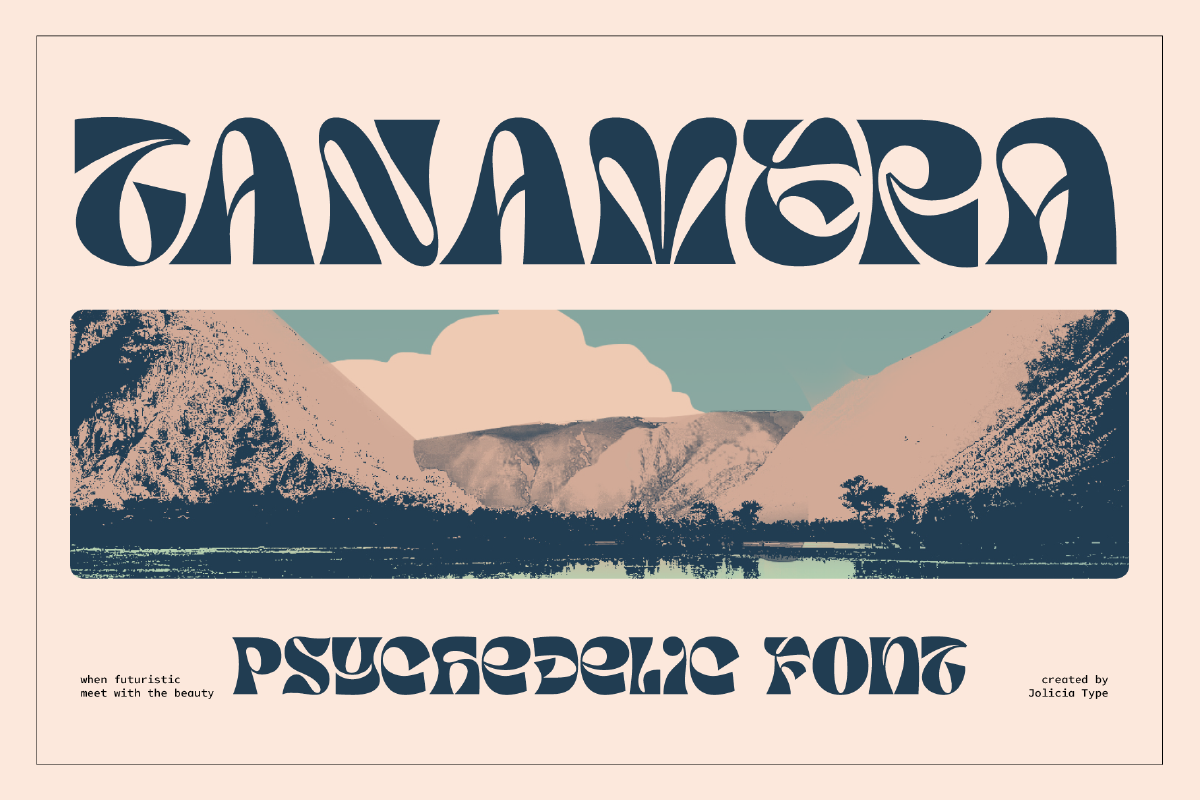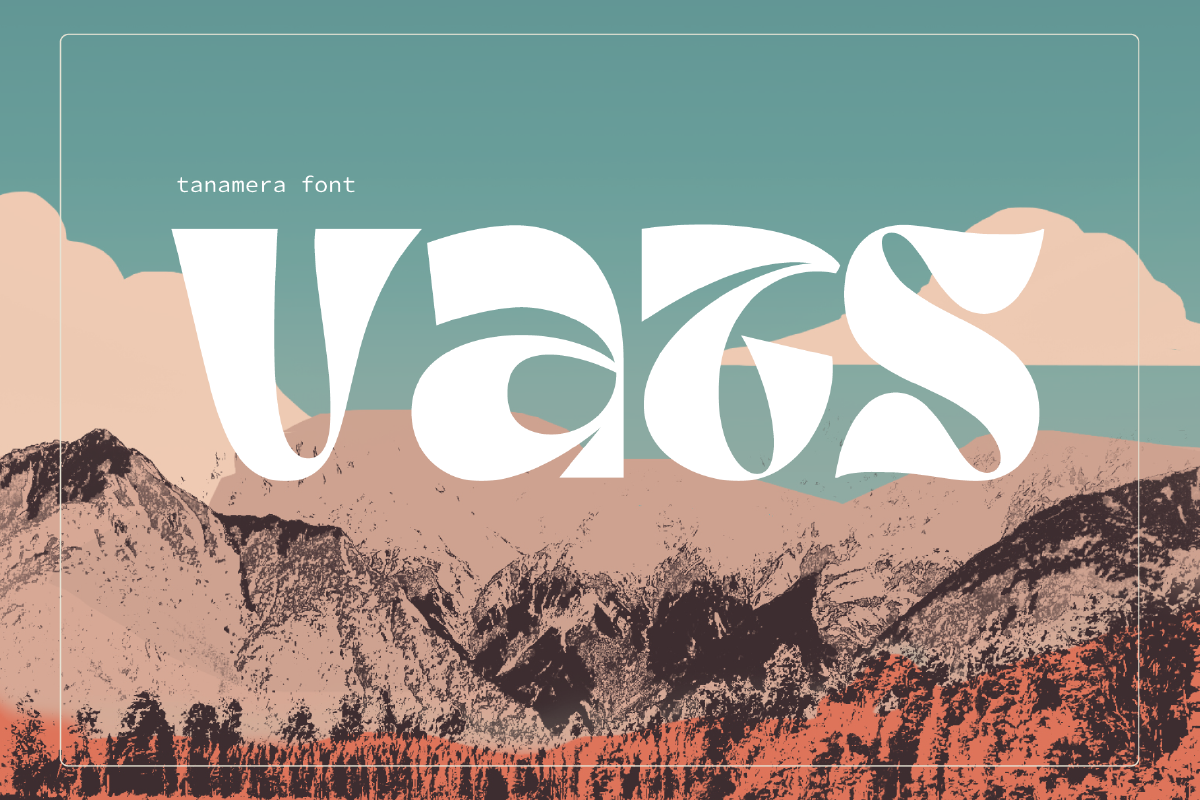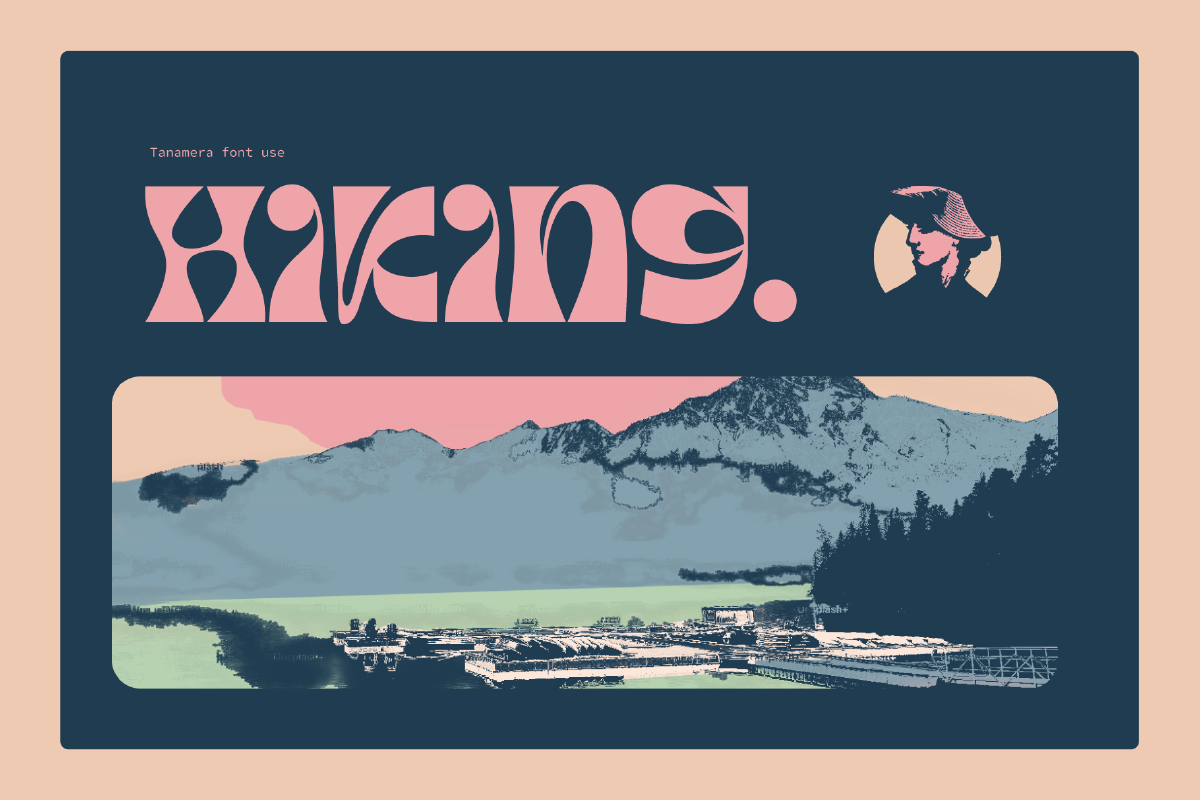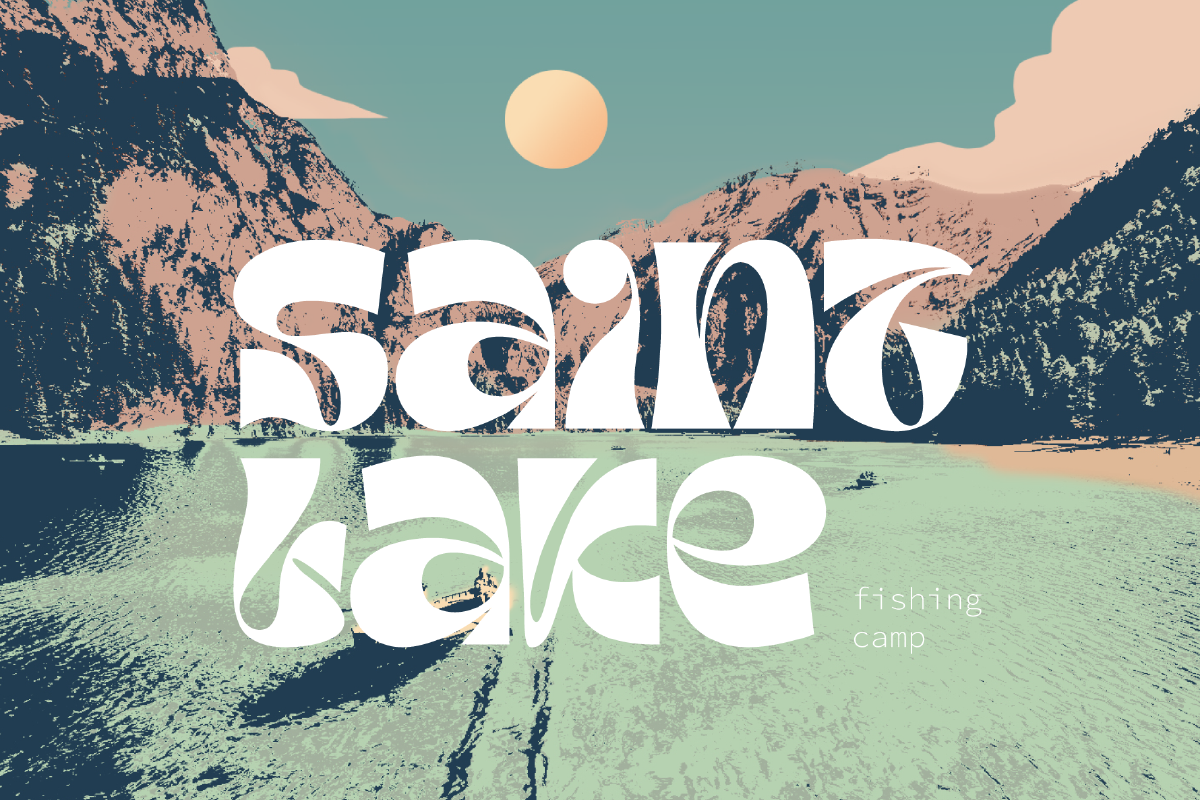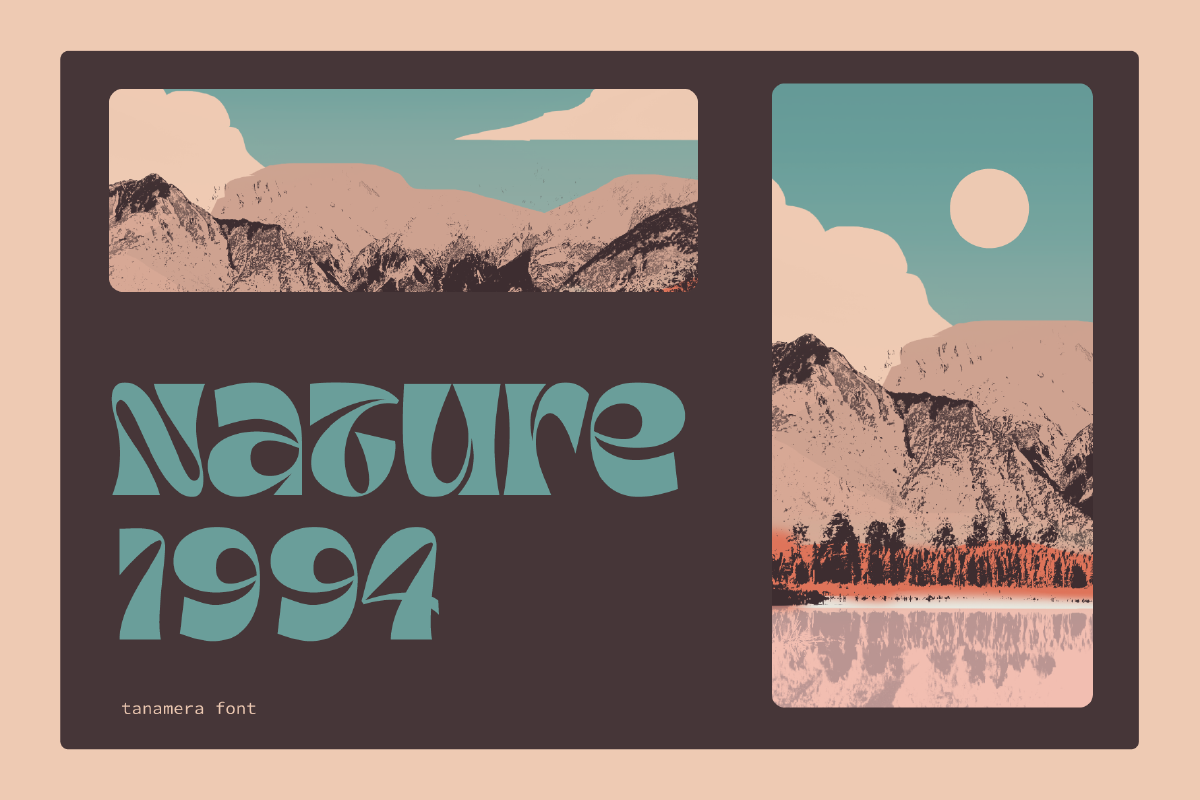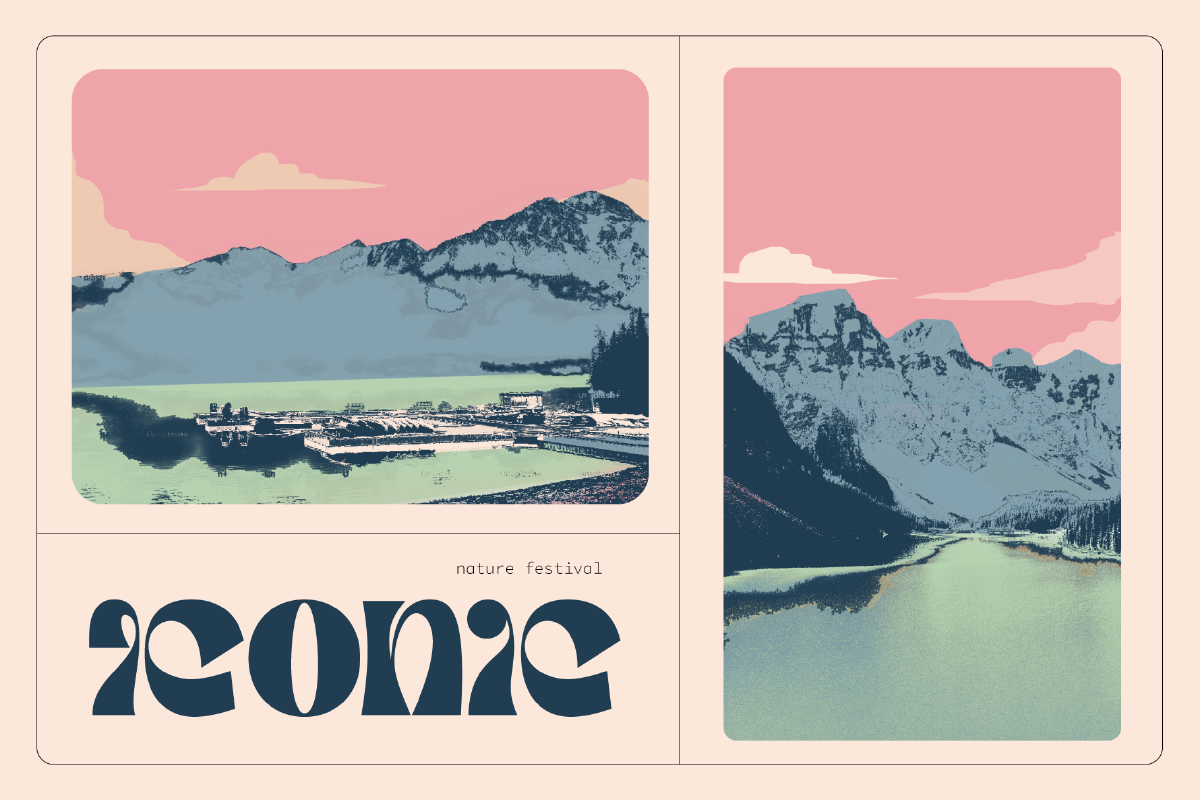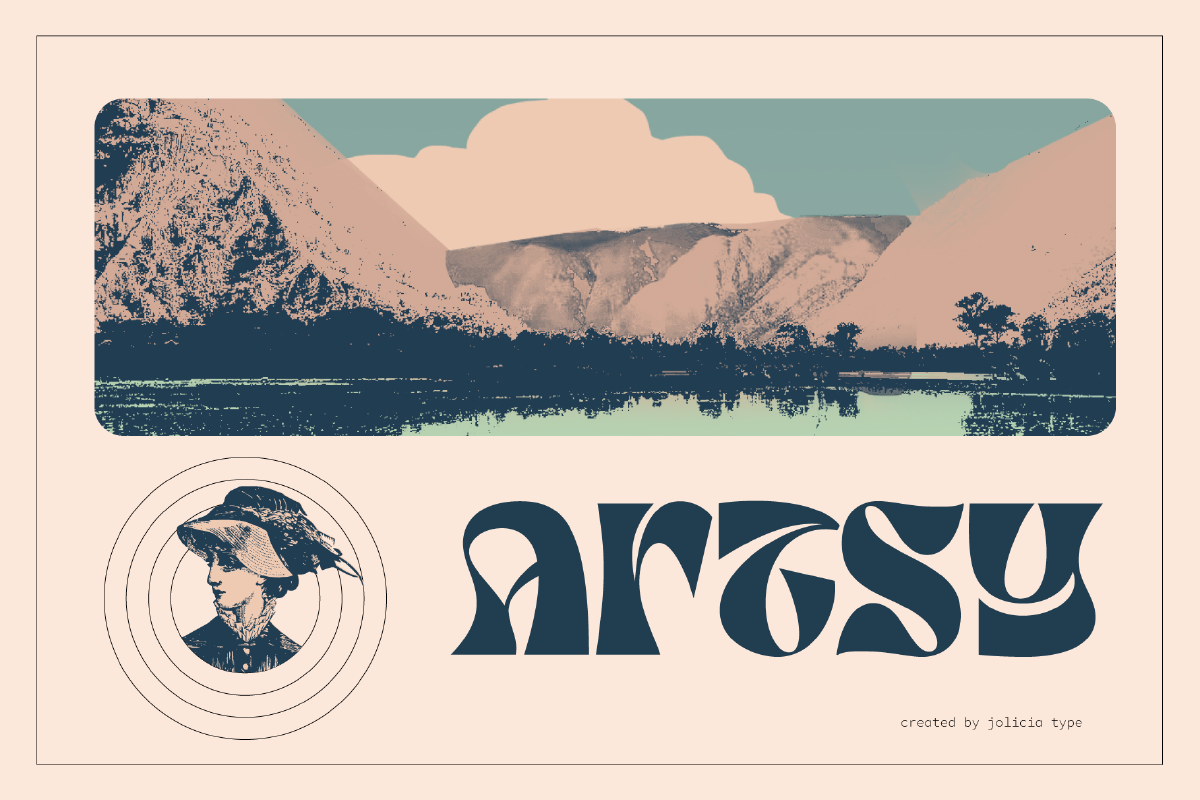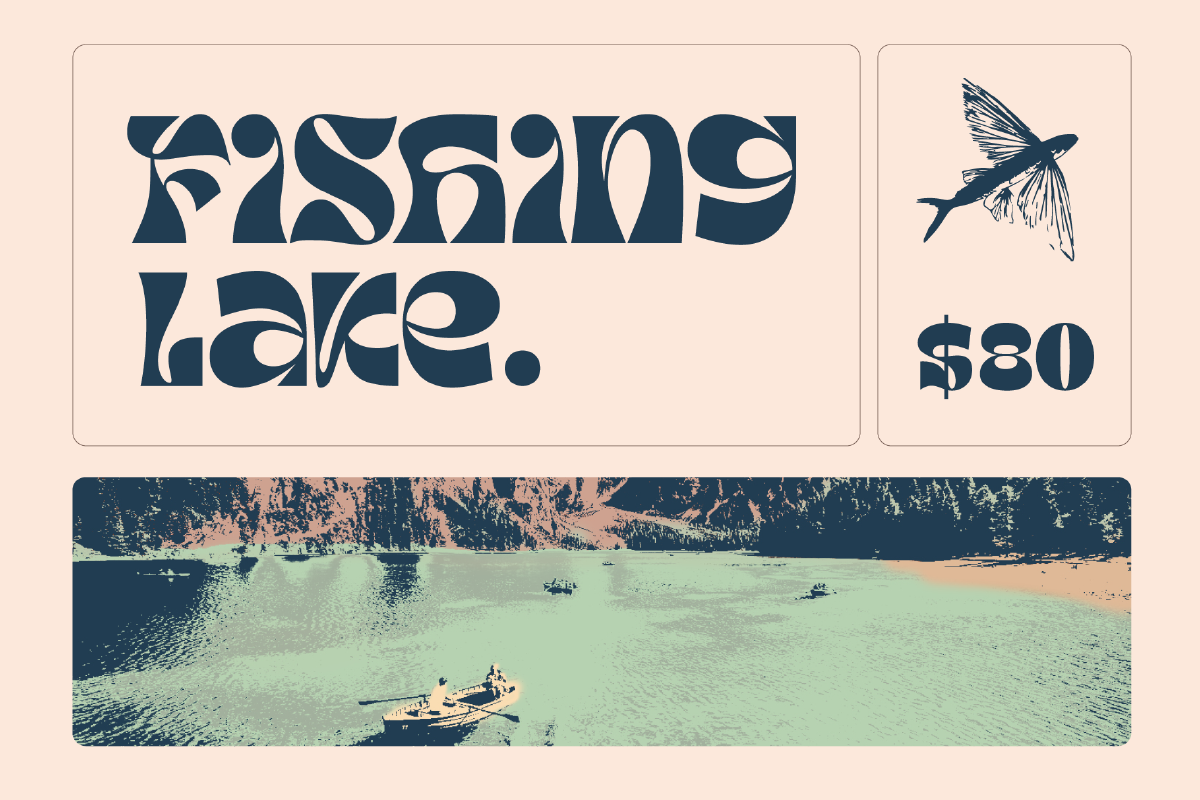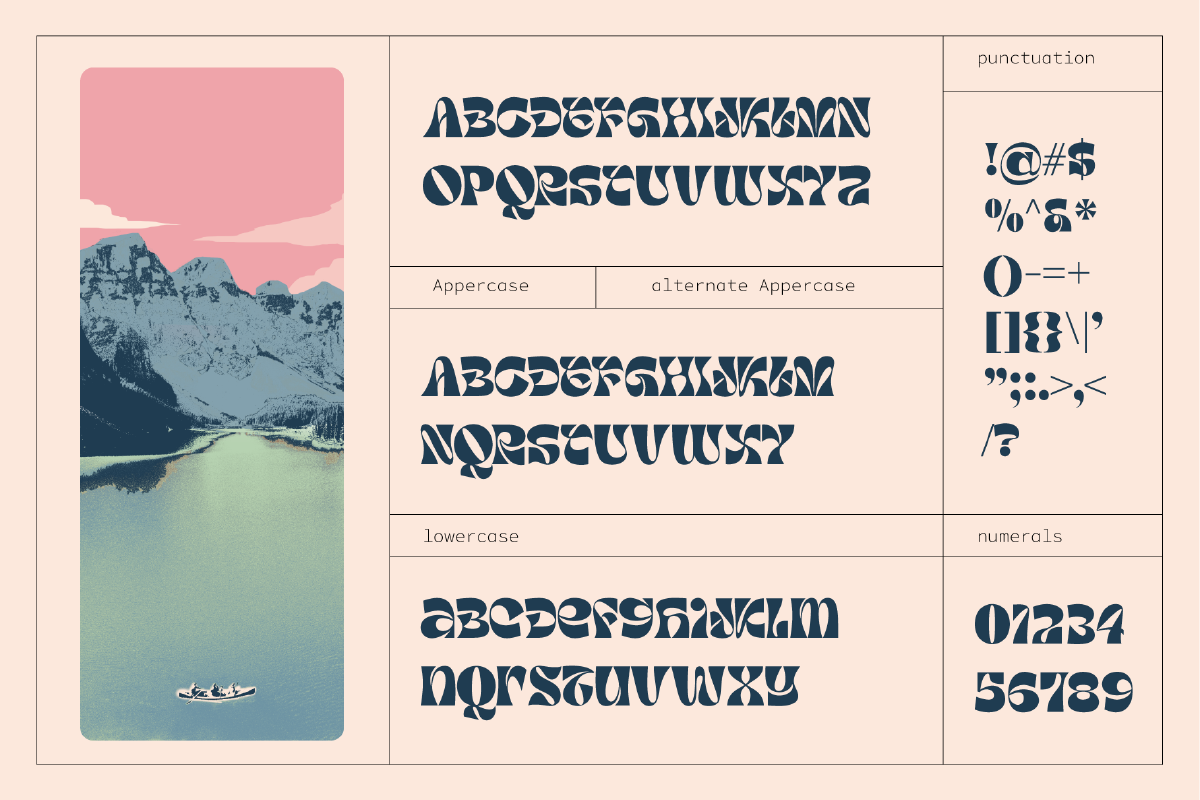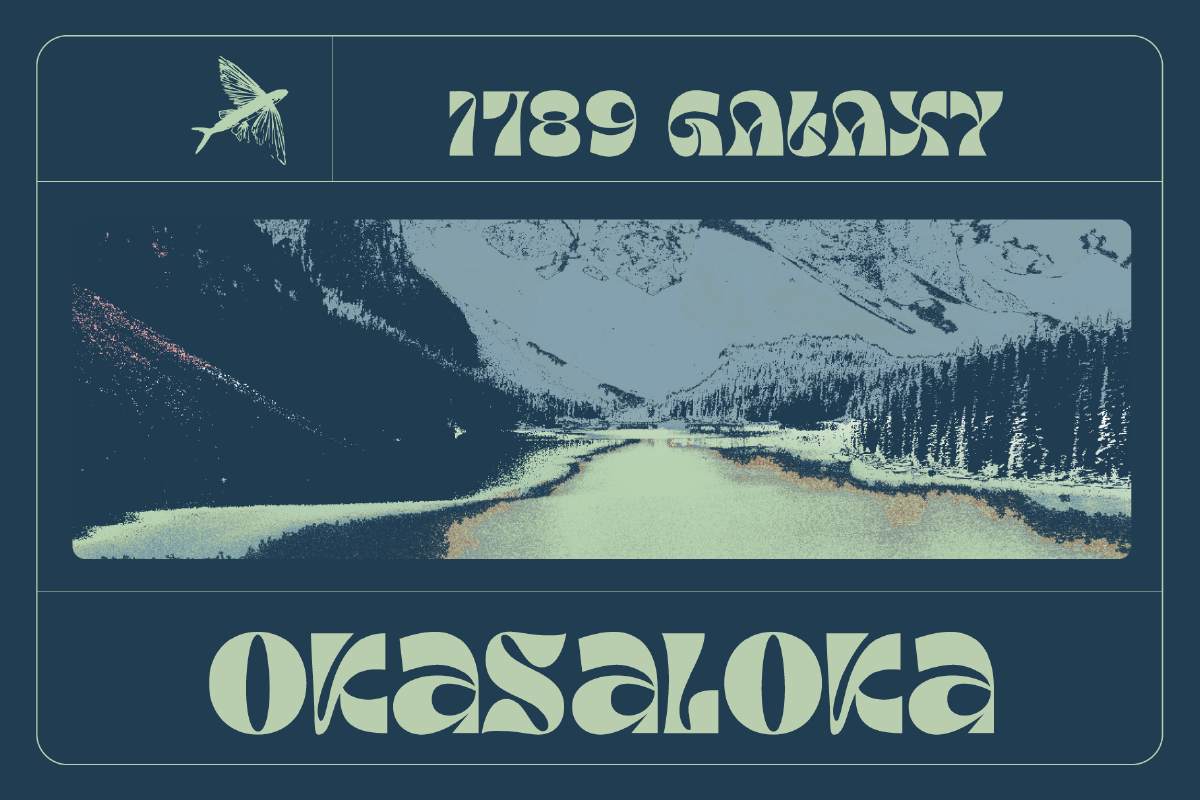
Introducing Tanamera, Your Portal to Psychedelic Nostalgia. Unleash the vibrant energy of the ’60s and ’70s with Tanamera – Psychedelic Font, the ultimate psychedelic type display font that channels the essence of retro vintage style. Whether you’re designing a groovy poster, an album cover, or revamping your branding, Tanamera is your ticket to a kaleidoscopic journey through time.
TANAMERA